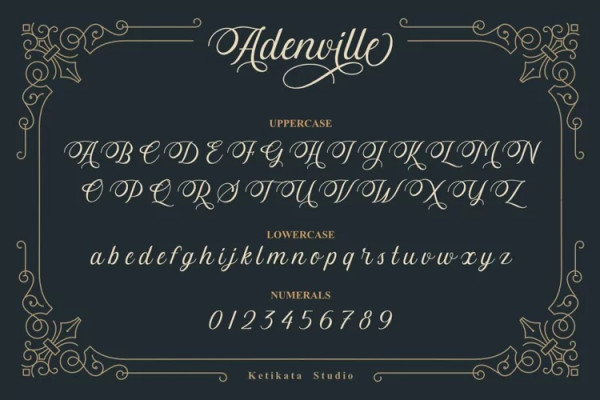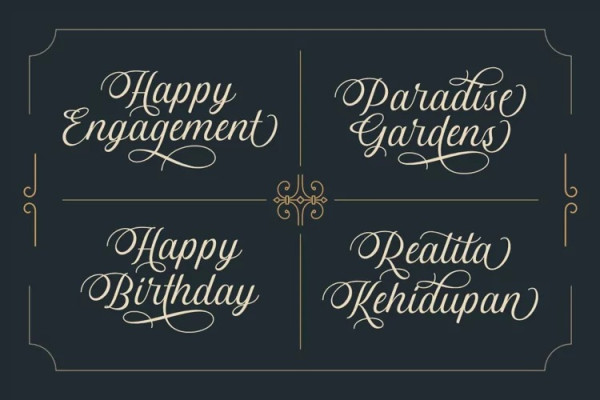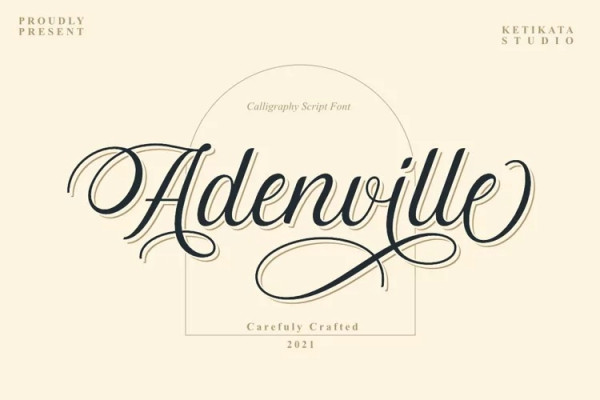
Adenville Font
Adenville Font is a strong and stylish script font. carefully crafted with hand lettering. that contains many stylistic alternate and swashes that will help you to create your own customized design.
this font has unique and perfect for branding (Logotype) and other design needs, like for quotes, merchandise, packaging, business card and many other project.
with start and ending swash, and middle swash for some letters, this is very easy to use, just rely on your creativity!
Adenville Font was impressed cool and elegant.